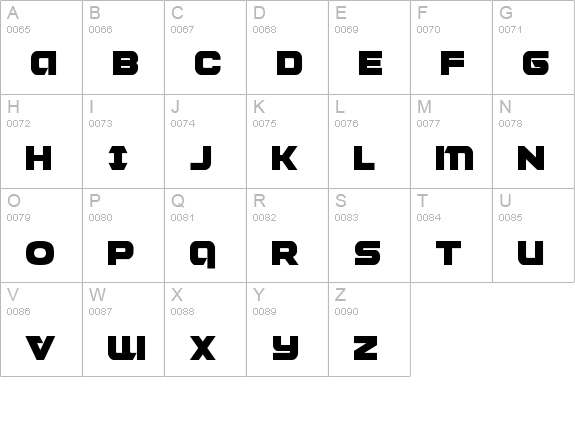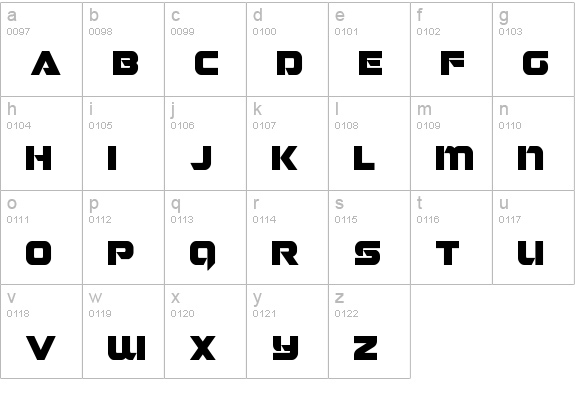
Jeebra is a donationware font in the Modern > Sci-Fi category, designed by Iconian. It has been downloaded 87 times and is available for Windows, Mac and Linux.
Introducing Jeebra Font, a sleek and modern typeface that effortlessly combines elegance with readability. This versatile font is perfect for a wide range of design projects, from branding to editorial design. With its clean lines and contemporary style, Jeebra Font adds a touch of sophistication to any project.